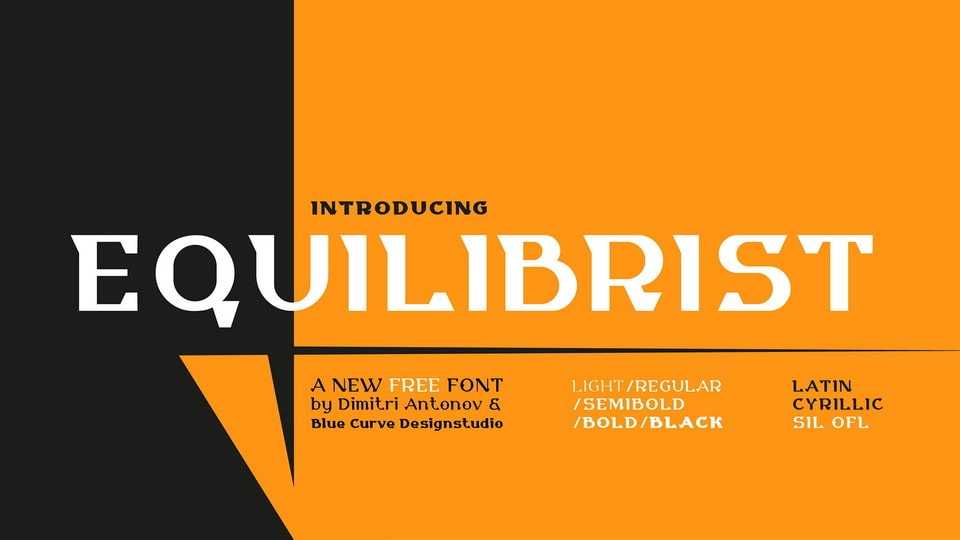
Download Equilibrist font, a serif typeface with a bold personality and sharp, striking edges that command attention. Equilibrist’s precise serifs and angular details give it a distinctive look.
Designer: Dimitri Antonov